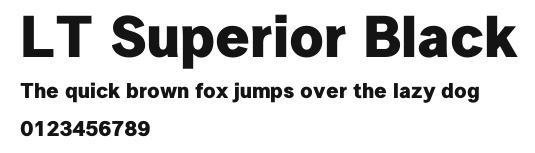
• Designer: Daniel Lyons
• Manufacturer: LyonsType
About LT Superior Black.otf
LT Superior Black.otf is a modern, elegant sans-serif font designed for ultimate readability and visual harmony. Perfect for branding, headlines, web design, and print materials.